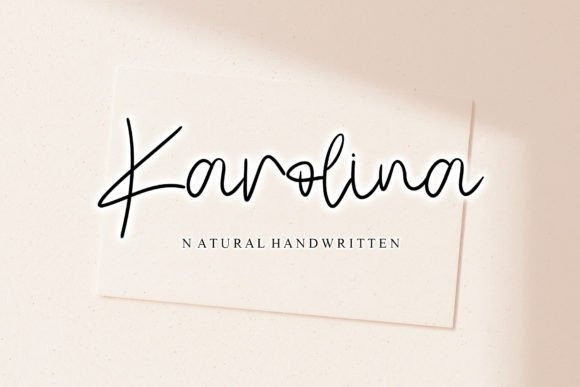
Karolina Handwritten Font
Karolina Handwritten Font is a lovely and delicate script font that exudes elegance and class. This font was particularly crafted for those who need a beautiful and refreshing look to their designs.